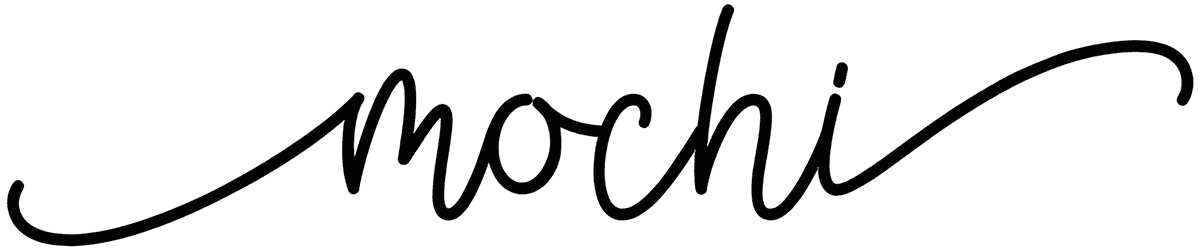
Mochi Font
Mochi is a glamorous script font that provides aesthetics without losing its solidity. Since this handwritten font comes with rounded edges and accurate kerning, it would really deserve to be on your radar in the field of creating innovative content such as book covers, product packaging, stickers, flyers, or social media posts.